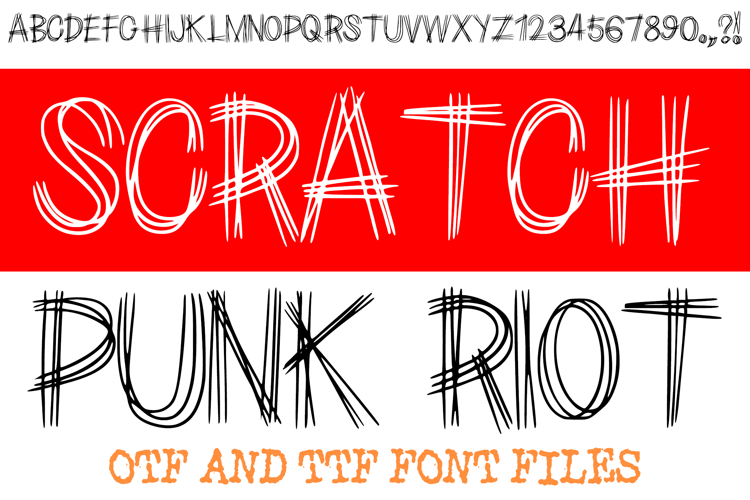
Say hello to Scratch Boys font.
Made with love and joy. Comic look, so it will make your design more beautiful, cute, fun, and colorful. It comes In two awesome styles.
Figuree Studio
Scratch Boys